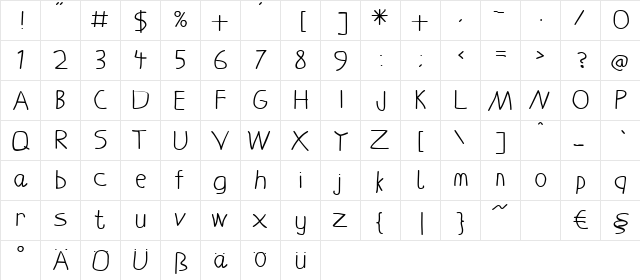
LaurensErste Regular
Design Context for LaurensErste Typeface
LaurensErste is a composed and adaptable typeface that performs quietly and consistently across a wide range of design contexts.